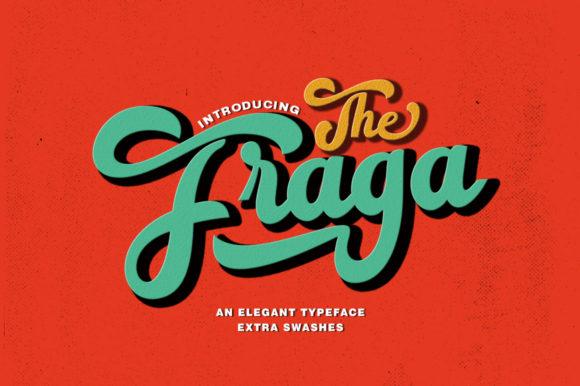
Journey back in time with The Fraga Script Font, a captivating script typeface that exudes a sense of nostalgia and elegance. This exquisite font, meticulously crafted by typehill, transports you to an era of timeless charm, where handwritten letters danced across parchment and ink flowed freely from quills. With its graceful curves, delicate swashes, and a hint of playfulness, The Fraga Script Font is a true gem that will elevate your designs to new heights of sophistication.
Unleash the power of The Fraga Script Font to transform your creative visions into captivating masterpieces. Its vintage aesthetic adds a touch of timeless allure to logos, branding, invitations, posters, and social media graphics. Whether you're a seasoned designer or a creative enthusiast, this versatile font is your gateway to creating designs that resonate with audiences and leave a lasting impression.
With The Fraga Script Font, you'll discover a world of endless possibilities. Its unique character set, including elegant uppercase and lowercase letters, charming numerals, and a delightful selection of punctuation, provides you with the tools to craft truly captivating compositions. Let your creativity soar as you explore the vast array of design possibilities that await you.